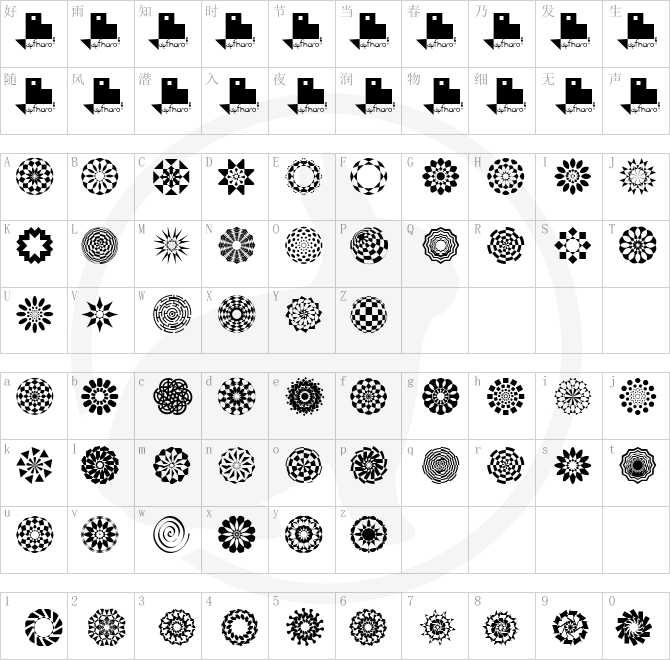
- Font Name:Wach Op-Art
Wach-Op-Art.ttf is a very beautiful artistic font, Wach-Op-Art.ttf is widely used in the design and printing of various books and pictures,Wach-Op-Art.ttf has a strong visual impact,Wach-Op-Art.ttf is a commonly used font in newspapers, magazines and books, and is used in posters, e-commerce Poster design, store design, logo design, font design and other fields.Wach-Op-Art.